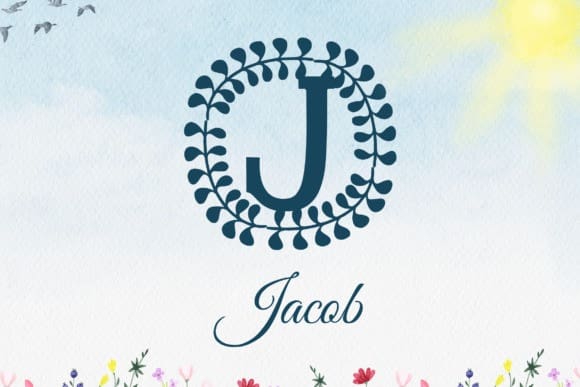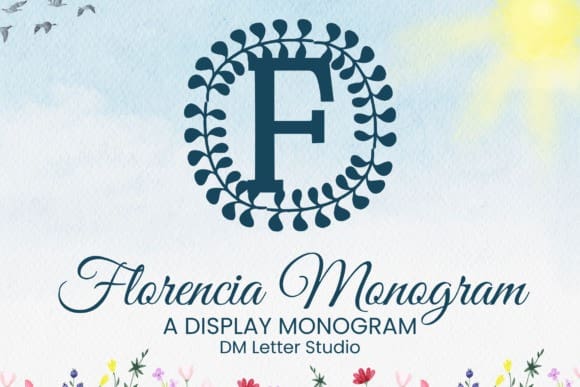
Florencia Monogram Font is a elegant serif monogram font shaped for timeless beauty and effortless personalization. Each uppercase letter is crafted with graceful proportions and subtle botanical cues, giving your initials a romantic, high-end presence without losing clarity. Use Florencia for wedding suites, boutique branding, gift items, stationery, packaging, engraving, and cutting-machine crafts where elegance matters.
The letterforms combine classic serif structure with soft, organic touches that hint at floral motifs. You’ll notice balanced stems, delicate terminals, and generous interior space, which help the letters breathe on everything from small tags to large signage. The result is a monogram style that feels poised, readable, and instantly premium in print and digital layouts.
The font includes a complete uppercase A–Z set, numerals, punctuation, and multilingual support for extended European languages. That means you can personalize names and phrases with confidence, even when accents are required. Use it for foil-stamped invitations, vinyl decals, laser engraving, embroidery, candle labels, and luxury product tags. Pair it with a simple sans or a delicate script to build a cohesive, gallery-worthy system for your brand or event.
If you’re looking for a monogram font that blends floral charm with classic typography, Florencia Monogram gives you the best of both worlds. It is elegant without being ornate, modern without feeling stark, and versatile enough to anchor an entire collection of personalized designs.